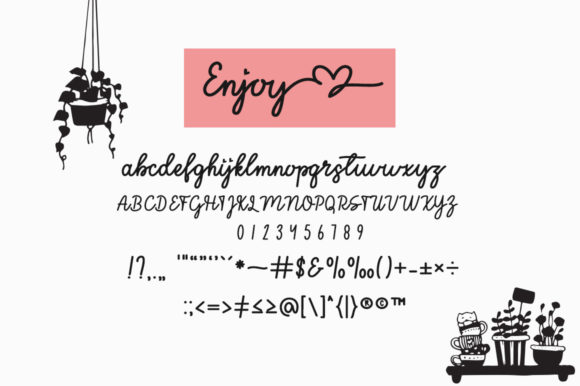
Enjoy the Little Things Font
Enjoy the Little Things is a cute and playful duo font (sans serif and script). Incredibly versatile, this font fits a wide pool of designs, elevating them to the highest levels. Enjoy the Little Things is PUA encoded which means you can access all of the glyphs and swashes with ease!